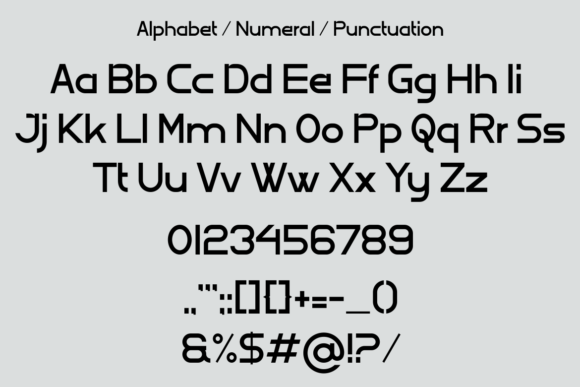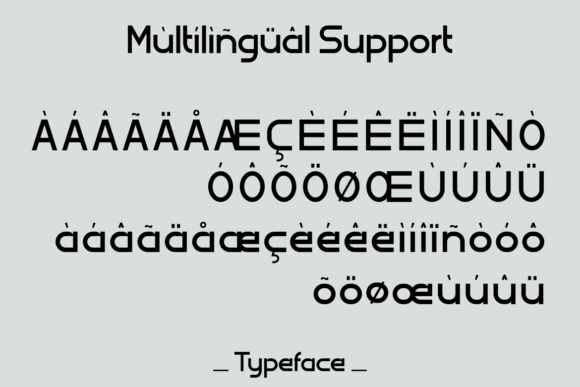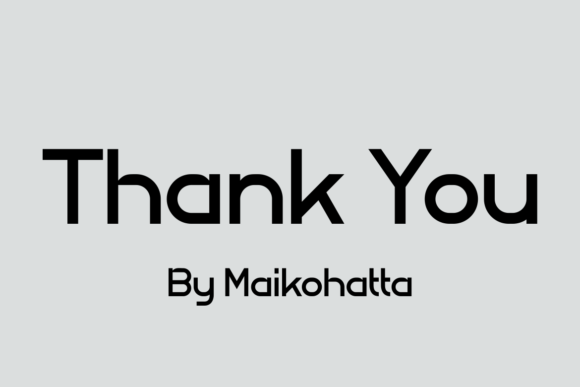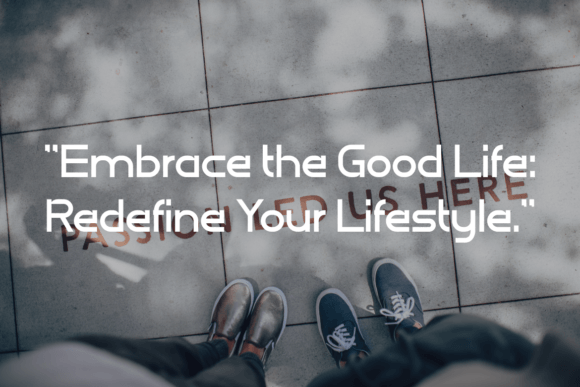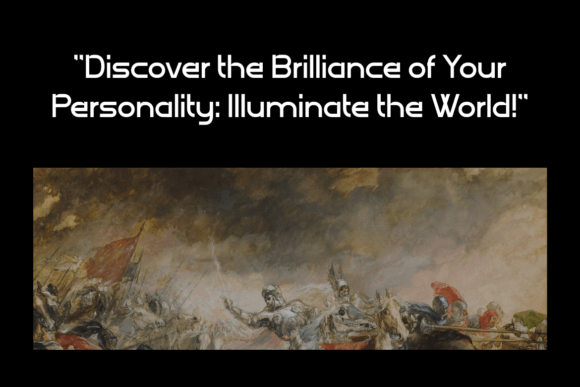
Introduction to Geliano Font
Geliano is a bold and authentic sans serif font.
It is suitable for any branding project like logo, template design, social media, cards, flyers and more .
Key Features of Geliano Font